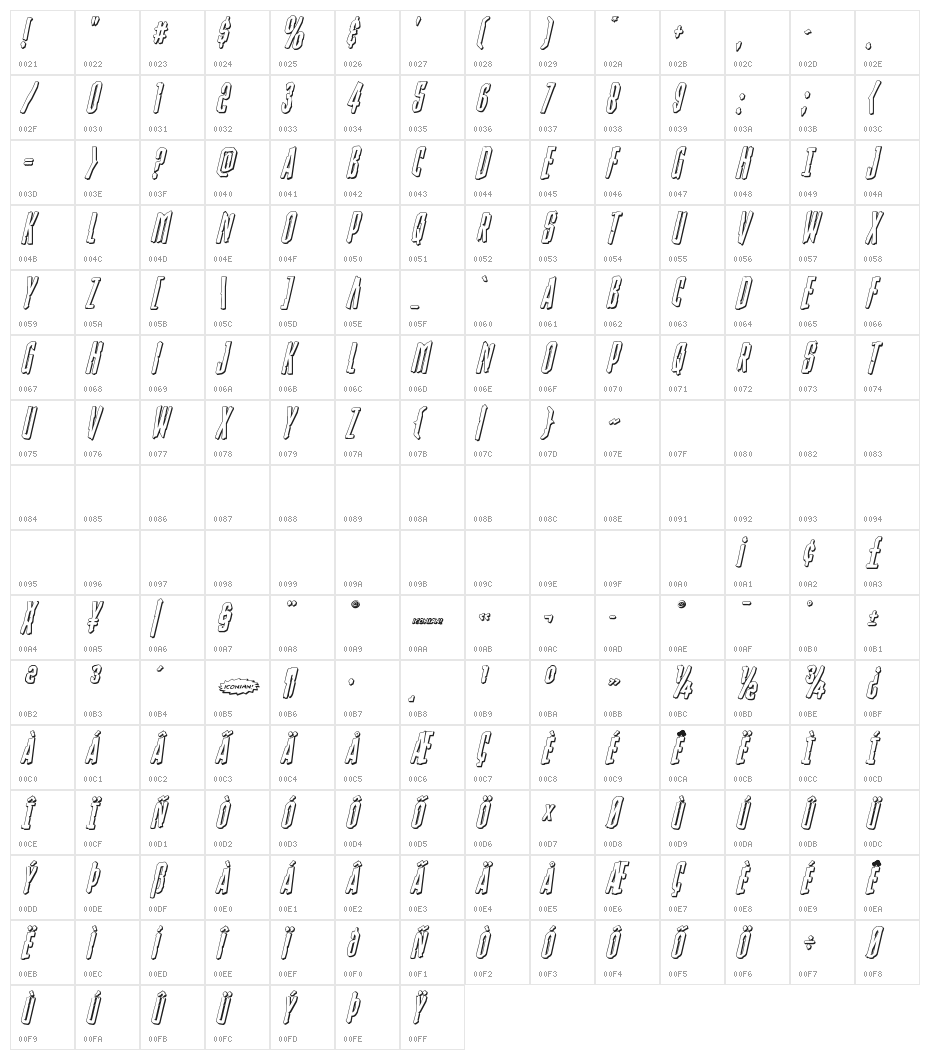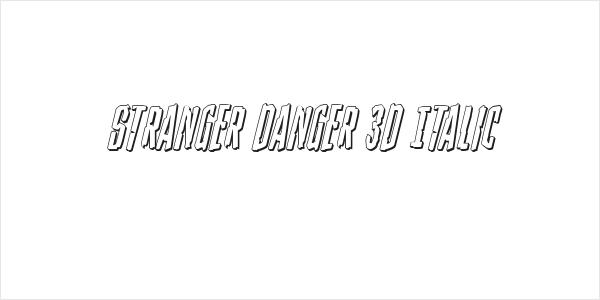
Stranger Danger 3D Italic Font
Stranger Danger 3D Italic Description
This font features a bold, three-dimensional design with an italic slant, giving it a dynamic and eye-catching appearance. The characters are outlined, creating a shadow effect that enhances the 3D illusion. The uppercase and lowercase letters maintain a consistent style, with sharp angles and clean lines. The numbers and special characters follow the same design principles, ensuring uniformity across all glyphs. This font's unique style makes it suitable for projects that require a strong visual impact.